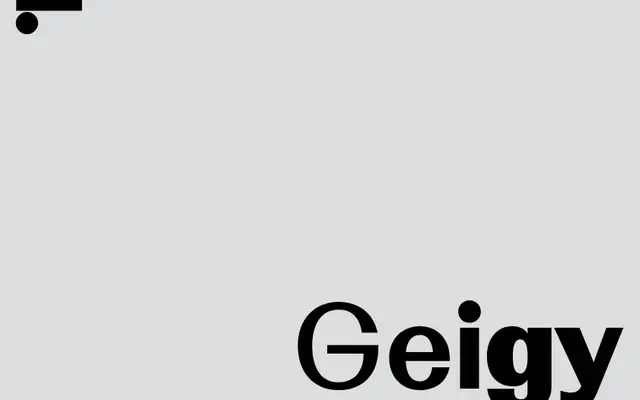
LL Geigy
A sans-serif drawn from pre-Helvetica Swiss lettering, built around pronounced thick-thin contrast and eccentric curves that counter the austerity of the era's standard grotesques.
Robert Huber spent over three years developing LL Geigy, taking as his starting point Karl Gerstner's 1953 masthead lettering for Geigy Berater and the broader tradition of whimsical, hand-drawn Swiss typography that Helvetica's dominance later obscured. The family runs to four weights with italics, plus two monospaced weights in which the contrast creates unusual spatial tension, widening and narrowing letterforms in ways that amplify rather than suppress their idiosyncratic character. Compact metrics and tightly closed apertures with horizontal terminals make it legible at small sizes despite its expressive proportions.
A sans-serif with pronounced thick-thin contrast and horizontal terminals, drawing from pre-Helvetica Swiss hand-lettering and custom typography; its eccentric curves and tightly closed forms sit closer to humanist than geometric or grotesque traditions.